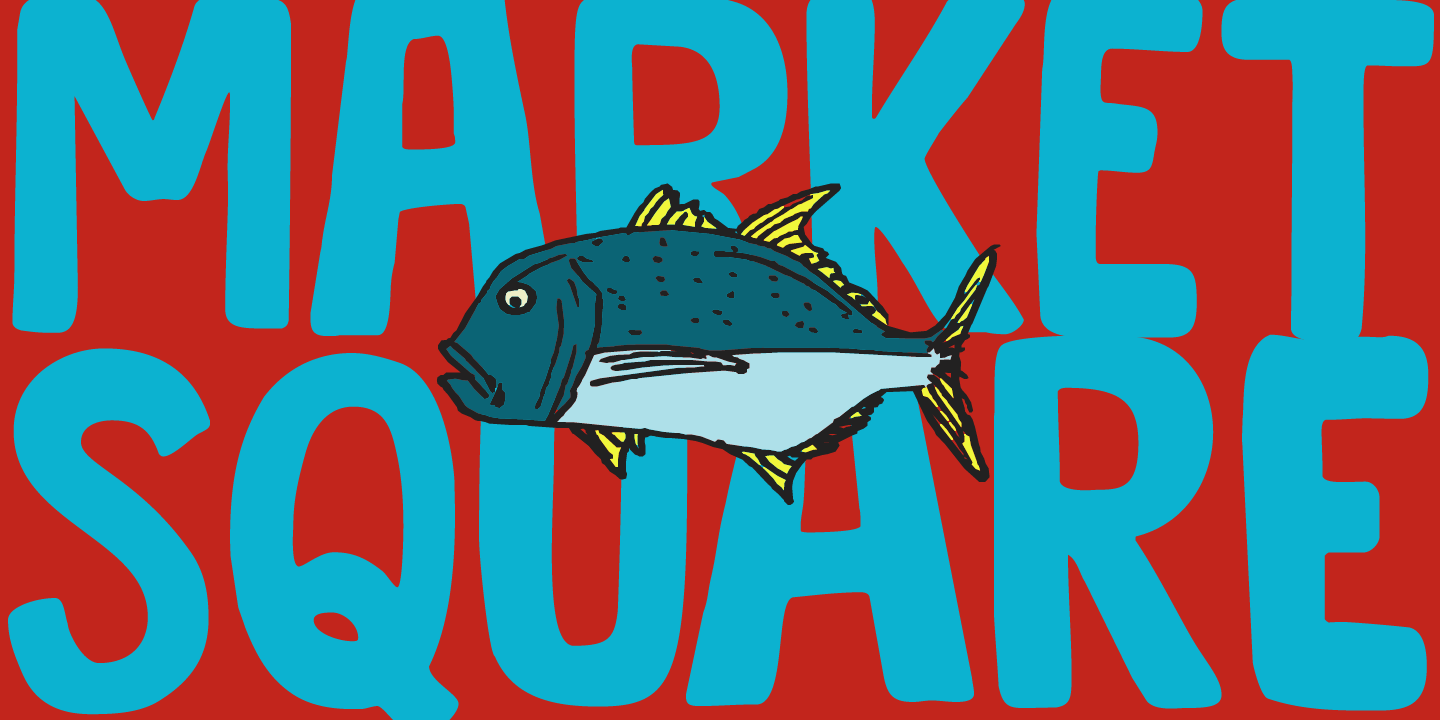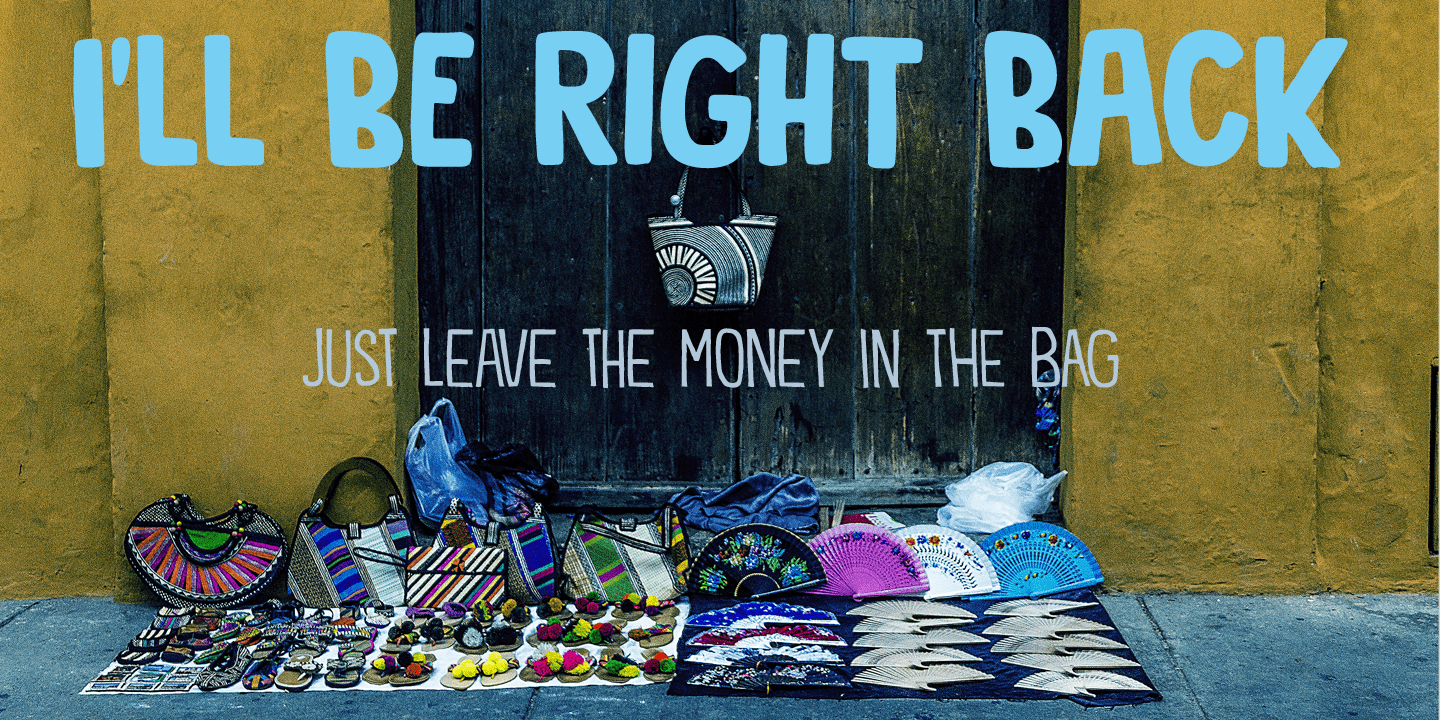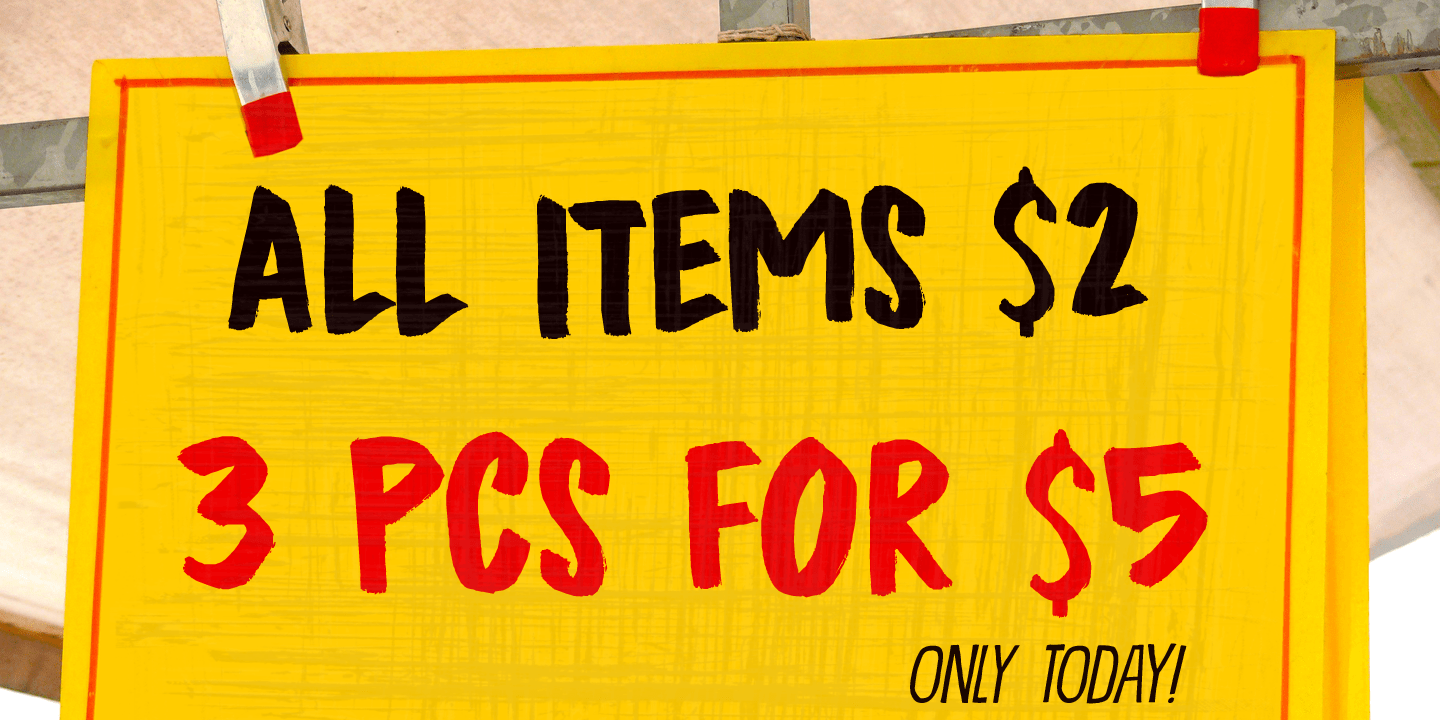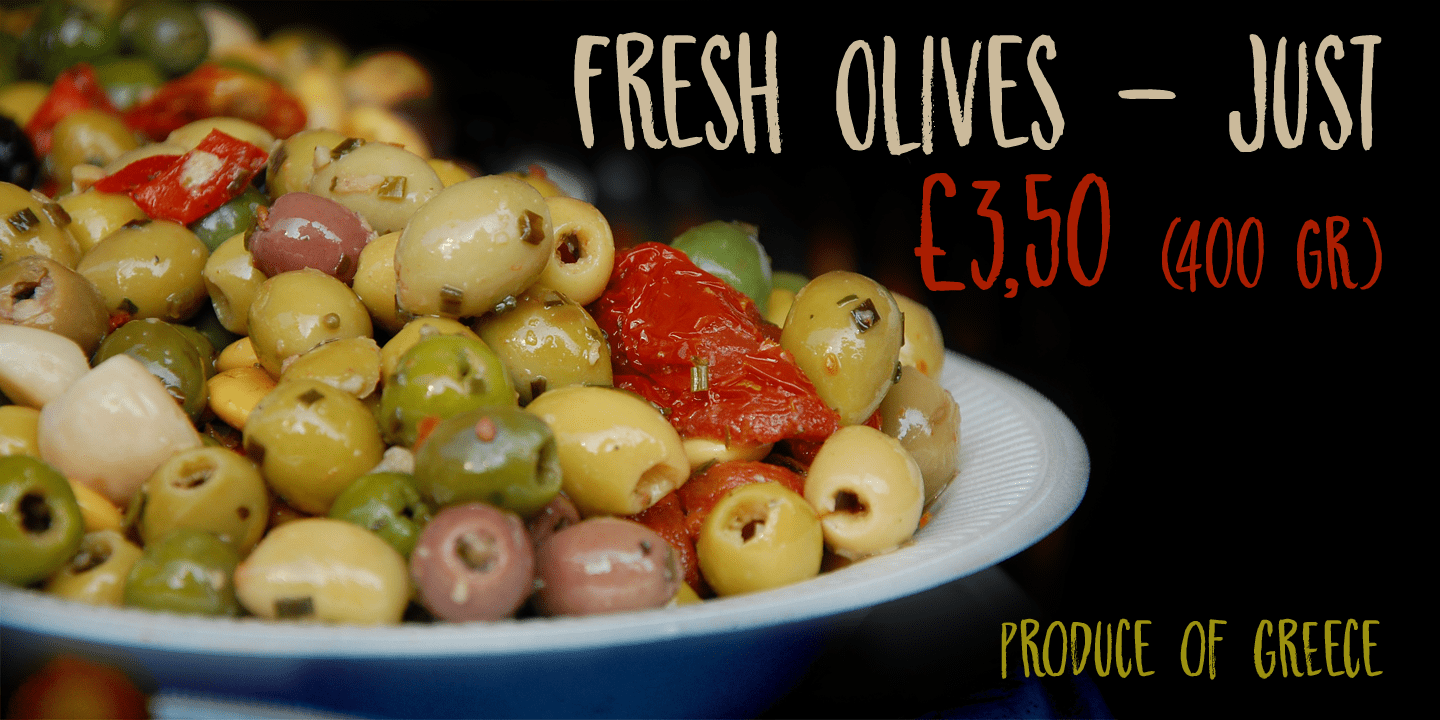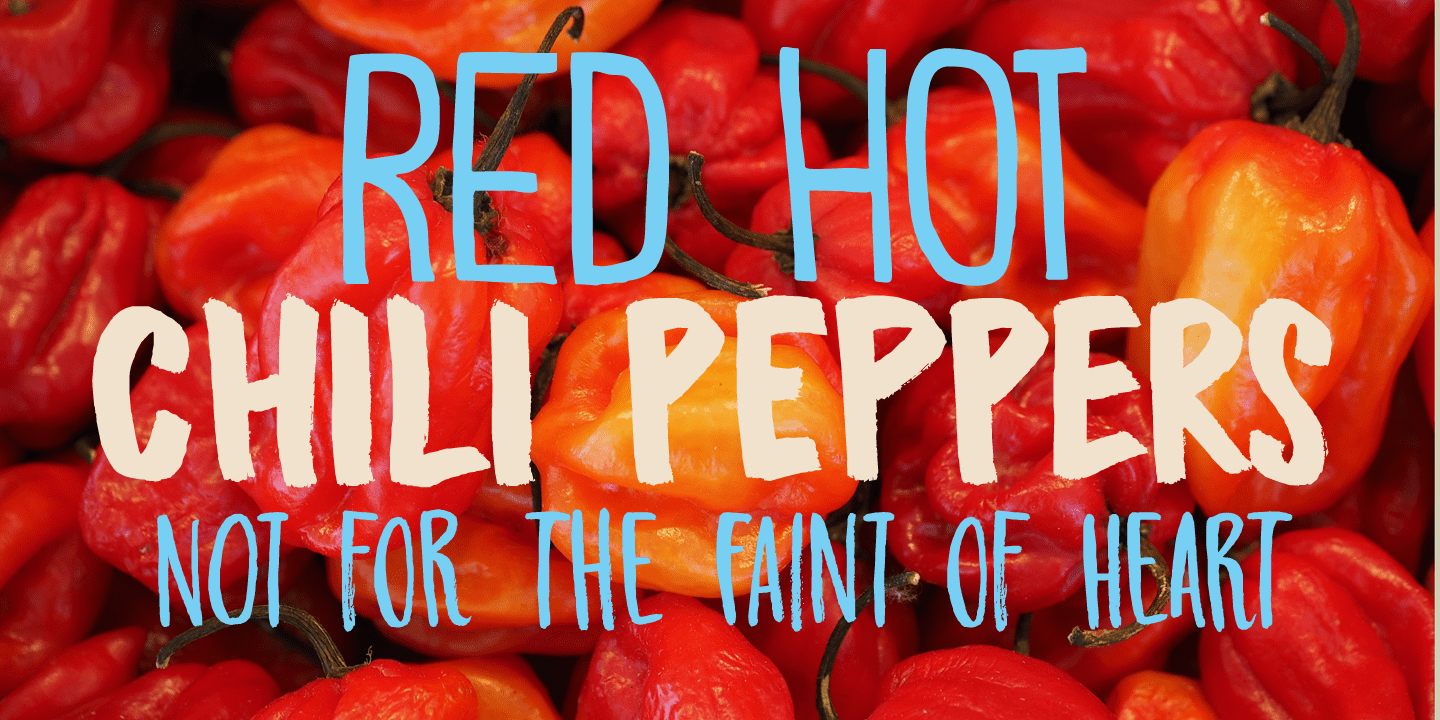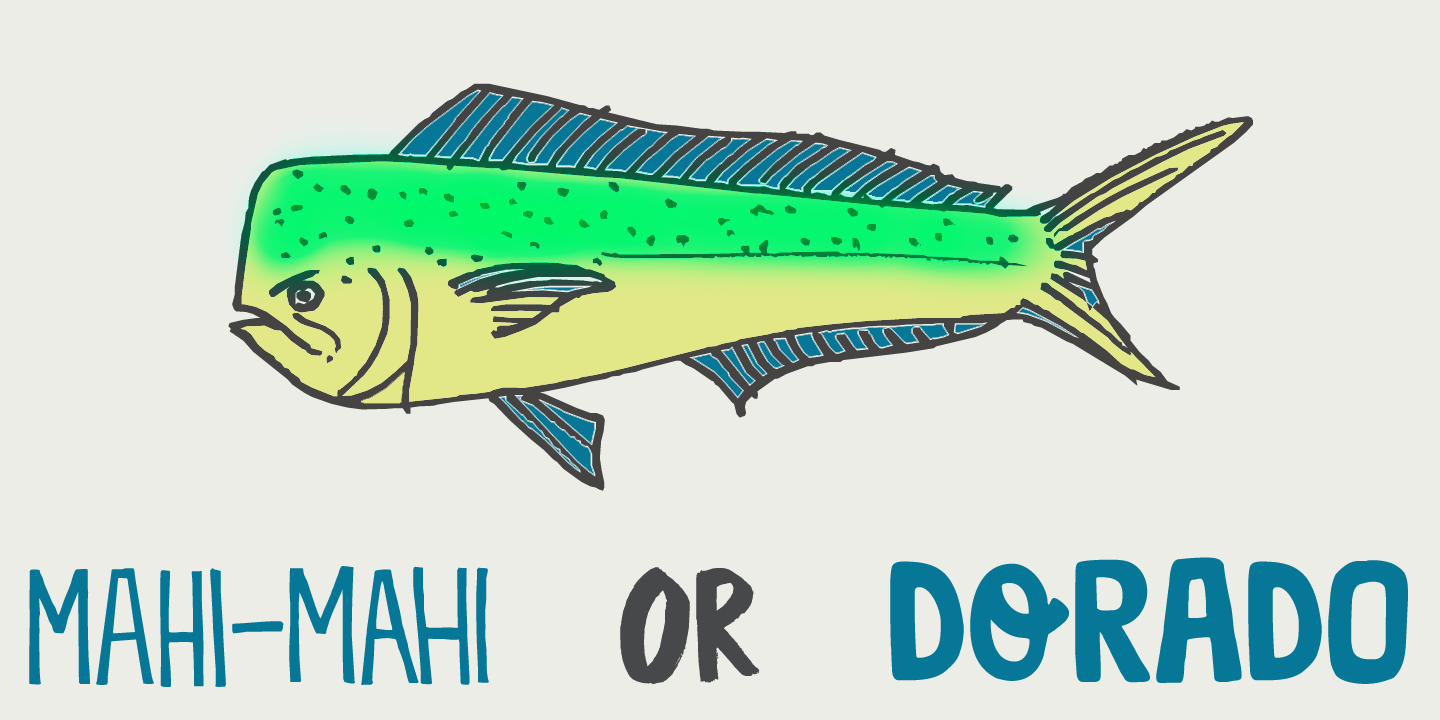
Market Square
I love markets, especially the farmer's markets with fresh produce and home made cheese. Too bad I need to travel a long way to get to one, as there is only a 'regular? market in my hometown - you know, with cheap duvets, ?local? fruit like bananas and a guy selling books about the end of times.
Market Square consists of 4 different fonts (each with its own Italic style), ranging from a fat marker font to a thin, squarish font. Each of them oozes freshness and authenticity and they were designed to complement each other. The cherry on top is the cute doodle font, loaded with fresh produce and seafood - just like you?d see on a Market Square.